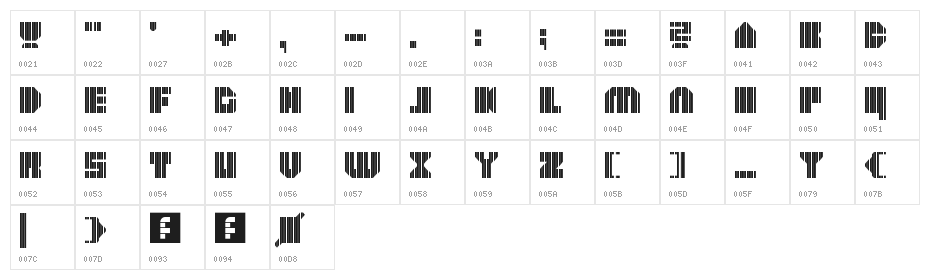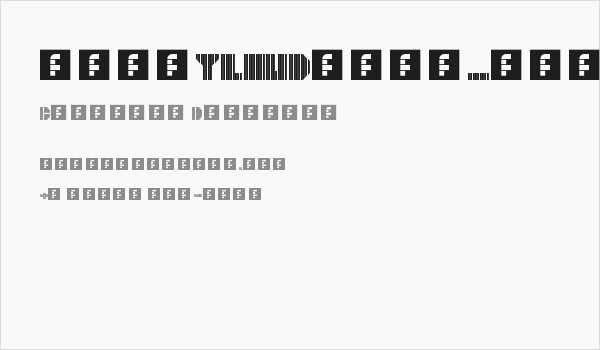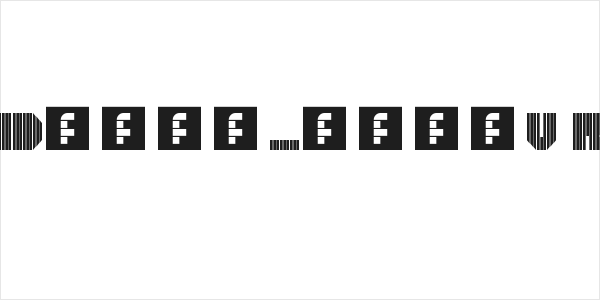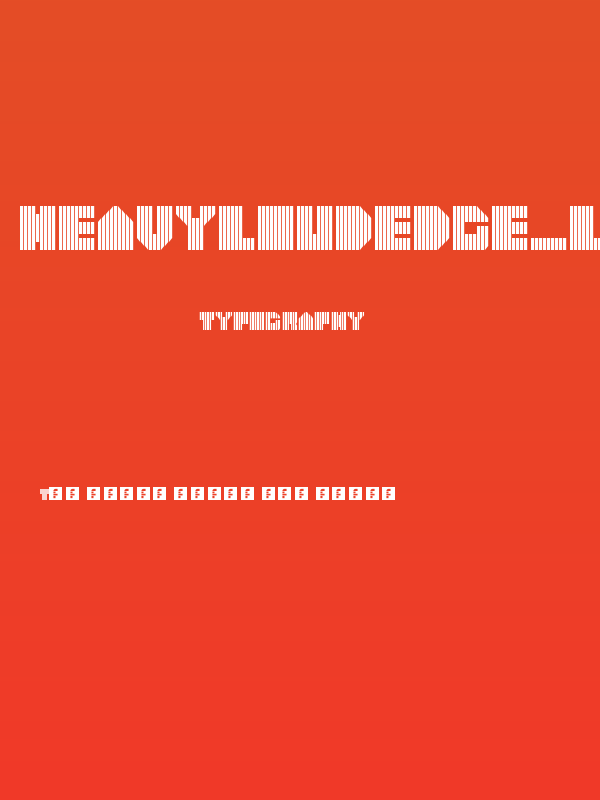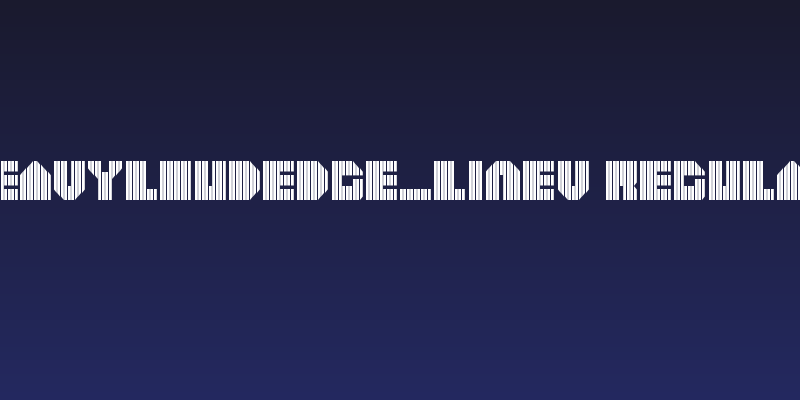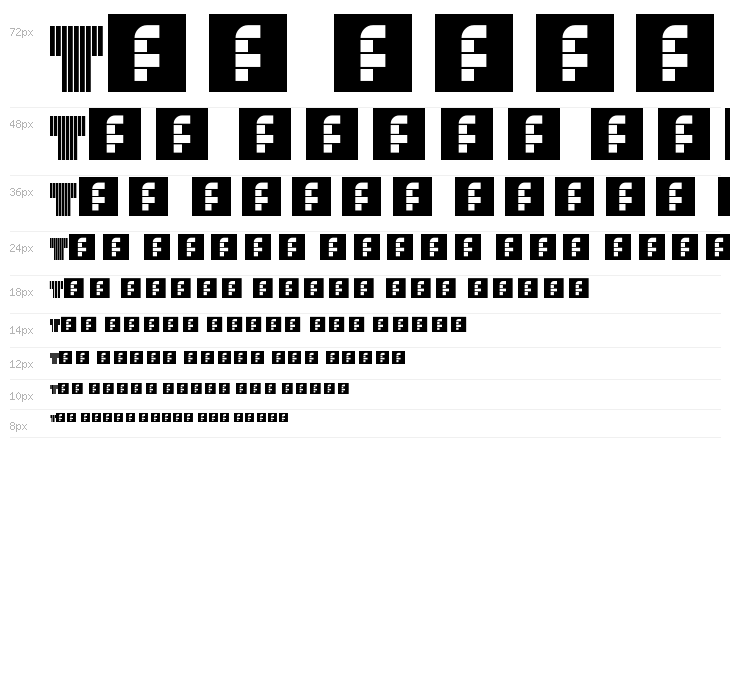
heavyLOUDedge_lineV Regular Font
heavyLOUDedge_lineV Regular Description
This font features a bold and striking design with a unique pattern of vertical lines creating a sense of movement and energy. Each character is constructed with a series of parallel lines, giving it a modern and edgy appearance. The uppercase letters are particularly dominant, with a strong geometric structure that makes them stand out. The lowercase letters maintain the same linear pattern, ensuring consistency throughout the typeface. The numbers and special characters are designed with the same attention to detail, making them easily recognizable and visually appealing. This font is ideal for projects that require a bold statement and a contemporary aesthetic.